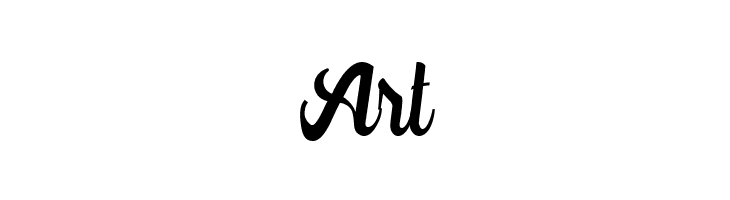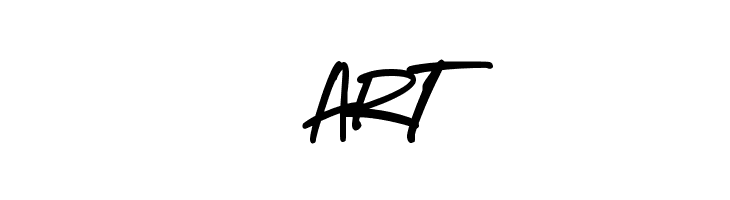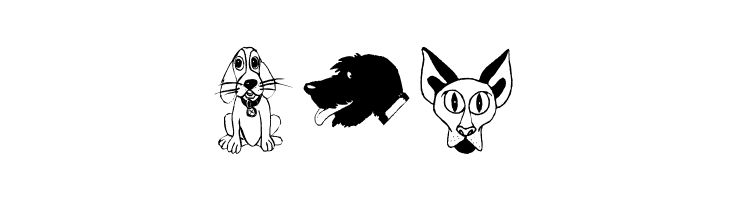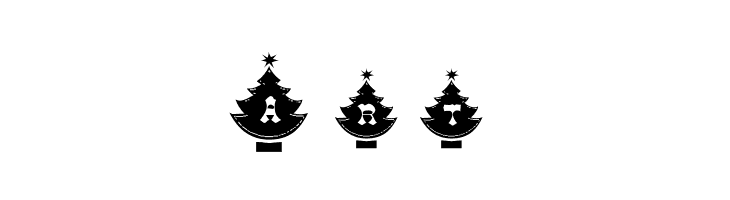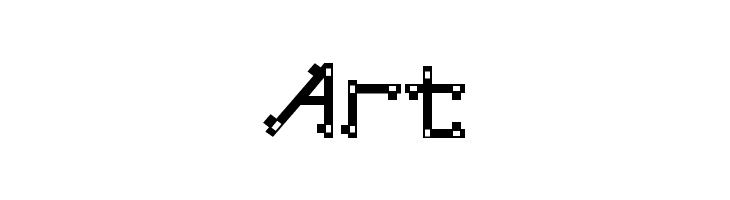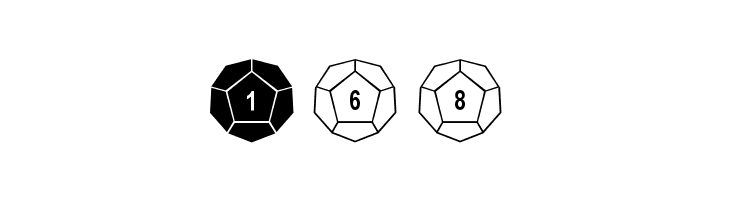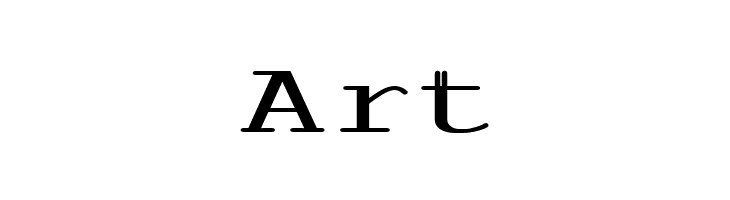
• DLTreeCaps
• Dodecahedron
( Fonts by Neale Davidson - www.pixelsagas.com )
• DoDoodle
A playful, jagged font with a hand-drawn, doodle-like appearance.
• Dogma
• DOGON'S TRIBE
A geometric, pixelated font with a futuristic, tech-inspired design.
• DogsFewCats
A decorative font made up of assorted dog and cat illustrations in various styles.
• Dooling Bold
( Annie de la Vega )
A bold slab serif font with strong, block-like serifs and a robust appearance.
• Downhill
A bold, cursive font with dynamic, interconnected letters.
• Downstairs
( Fonts by Gassstype )
A bold, handwritten font with fluid, energetic strokes.
• Dowted remix tfb
A modern, dotted font with a playful and unique style.